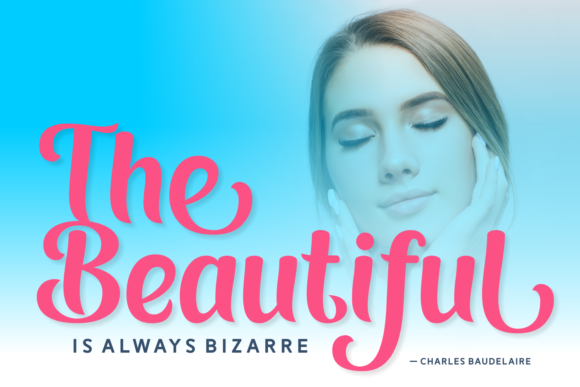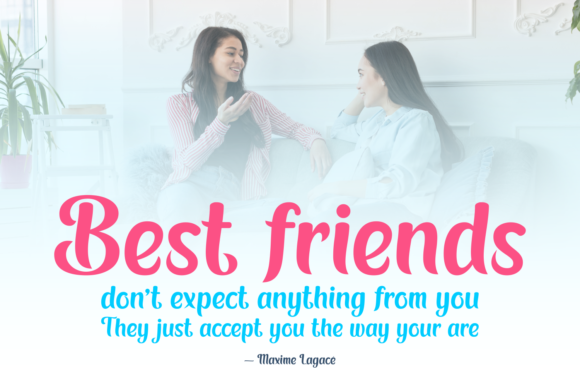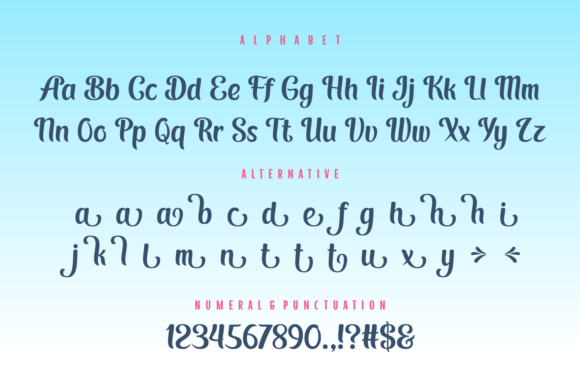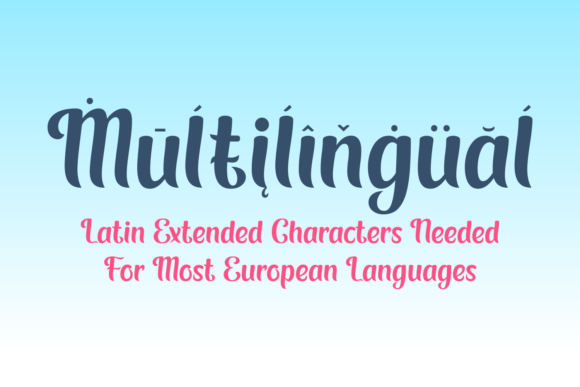
Unlocking the Magic of Whimsical Typography
Have you ever stared at a blank page, waiting for that perfect spark of creativity to strike? It’s a feeling many designers know all too well. But what if that spark was a font – a font that could transport your words to a world of wonder and enchantment?
| 👤 Author | Rizkky (7NTypes) |
Meet the Bright Cibela Font, a cool, detailed, and whimsical handwritten font that’s perfect for adding a touch of magic to your designs. With its extensive range of glyphs and swashes, this PUA encoded font is a treasure trove of creative possibilities. Whether you’re a seasoned designer or just starting out, the Bright Cibela Font is a valuable addition to your toolkit, offering endless opportunities to experiment and push the boundaries of typography.
Bright Cibela Font Key Features
- Font Family: Bright Cibela
- Character Count: 250+ characters, including uppercase and lowercase letters, numbers, and special characters
- Unique Characteristics: Bright Cibela features a unique blend of modern and vintage elements, with a focus on clean lines, geometric shapes, and a touch of nostalgia
Bright Cibela Font Review
I recently had the chance to work with the Bright Cibela font, and I must say it’s been an interesting experience. Here’s my honest review of this unique font.
- Unique design: The Bright Cibela font has a distinct, eye-catching design that can definitely grab attention.
- High legibility: Despite its unique style, the font is surprisingly easy to read, even at smaller sizes.
- Not suitable for body text: The Bright Cibela font is better suited for headings and titles, as its unique style can be overwhelming for large blocks of text.
- Limited font sizes: The font may not look its best at font sizes above 24 points or below 12 points.
- Not suitable for small screens: The font’s large x-height and distinctive letterforms can make it difficult to read on smaller screens.
Overall, the Bright Cibela font is a great choice for designers who want to add some visual interest to their designs. However, it’s essential to use it judiciously and in the right context to avoid overwhelming the reader. With a little restraint and creativity, the Bright Cibela font can be a valuable addition to your design toolkit.
Tips for Getting the Most Out of Bright Cibela Font
Use Bright Cibela Font for titles, headings, and emphasis to add a touch of elegance and sophistication to your designs.
Experiment with different font sizes and colors to create visual interest and hierarchy in your designs.
Bright Cibela Font is ideal for:
Corporate branding and marketing materials
Designing elegant and sophisticated websites
Comparison to Bright Cibela Font: While Bright Cibela Font has a more modern and edgy feel, Carolyna Pro is more classic and refined. Carolyna Pro is a better choice when you want to convey a sense of luxury and sophistication.
Pacifico is a beautiful, modern script font that is perfect for creating a relaxed and beachy atmosphere. It is ideal for use in branding, advertising, and packaging materials where a sense of calmness and serenity is desired.
Yes, Bright Cibela Font supports a wide range of languages, including but not limited to English, Spanish, French, German, Italian, Portuguese, Dutch, Russian, Chinese, Japanese, and Korean. The font is also OpenType-enabled, allowing for advanced language support and layout features.